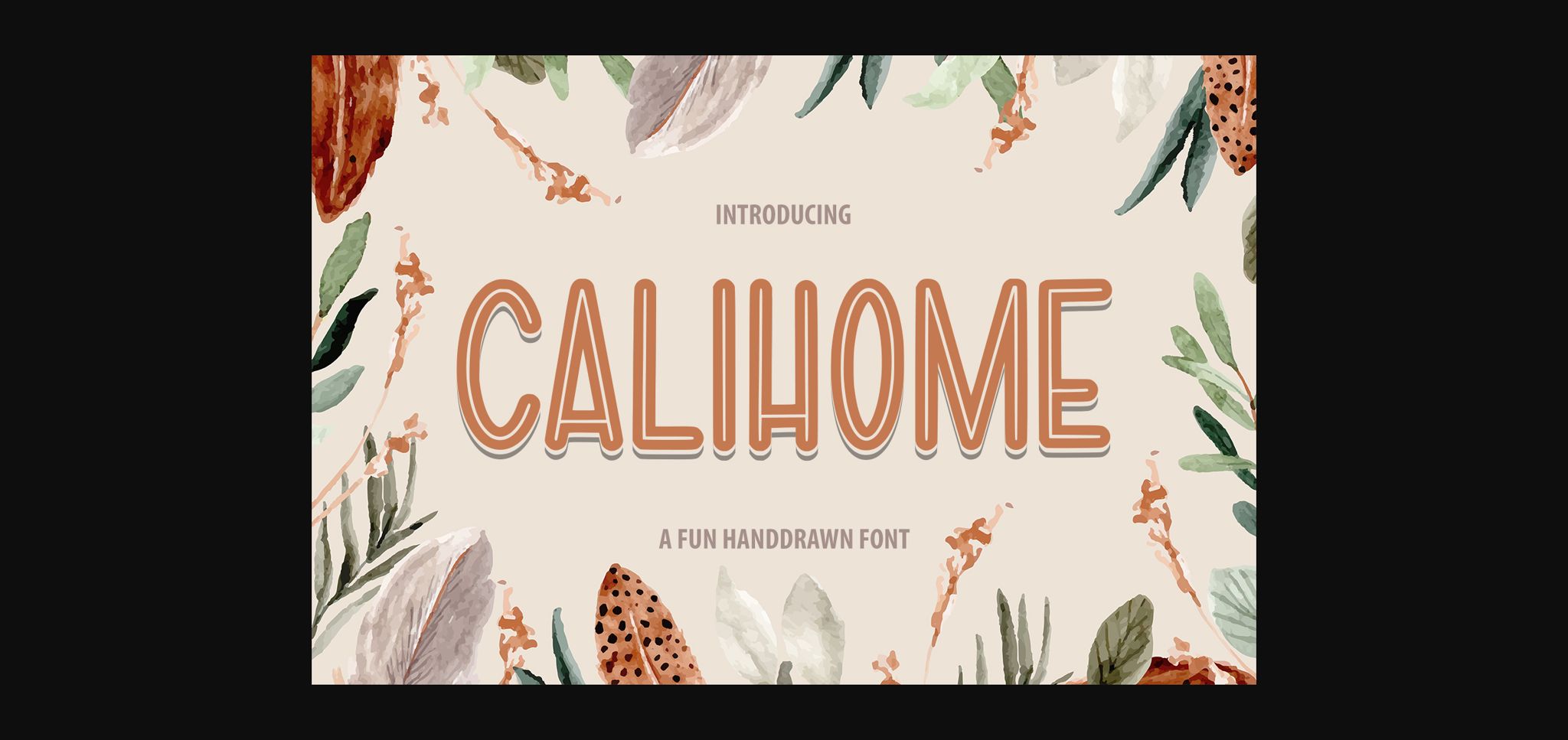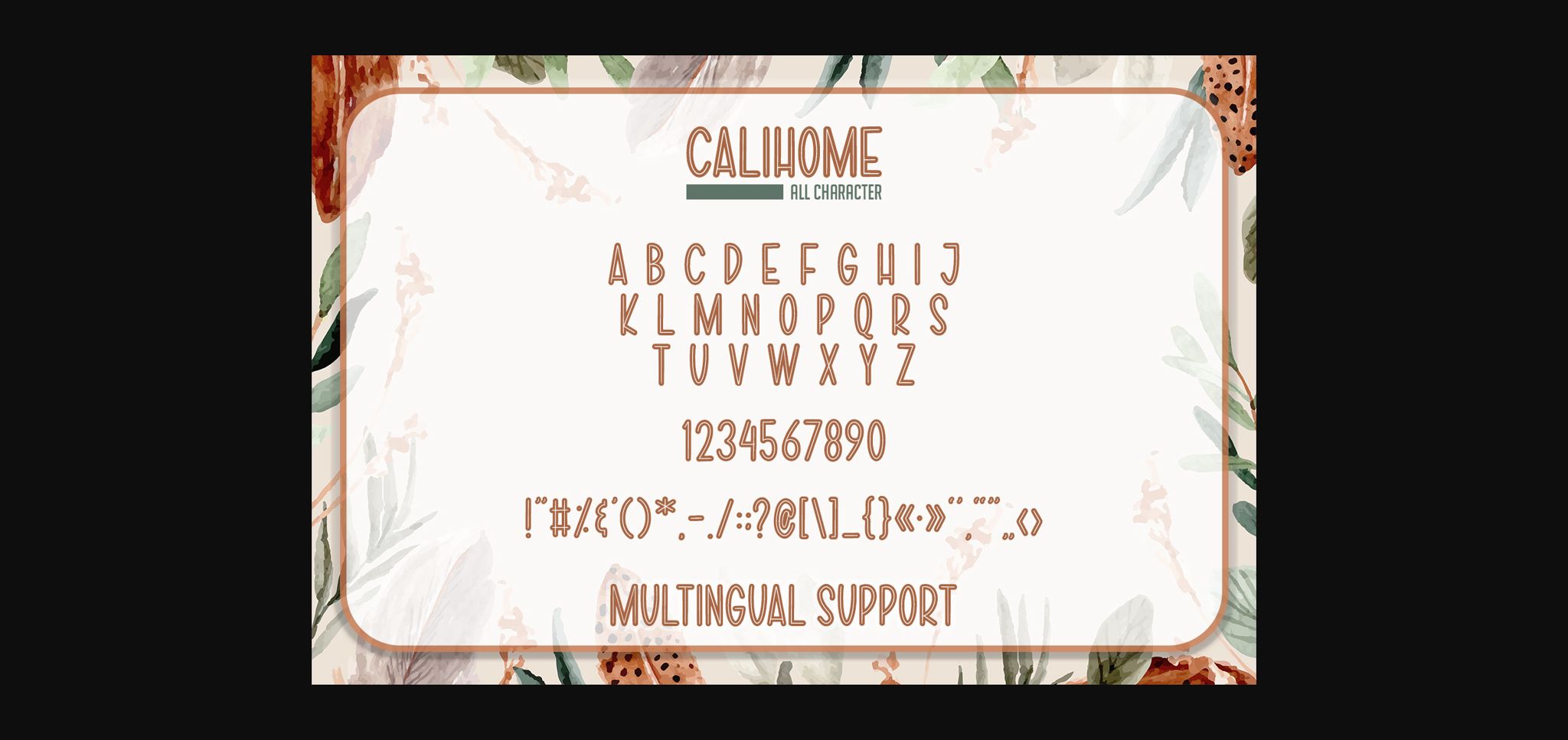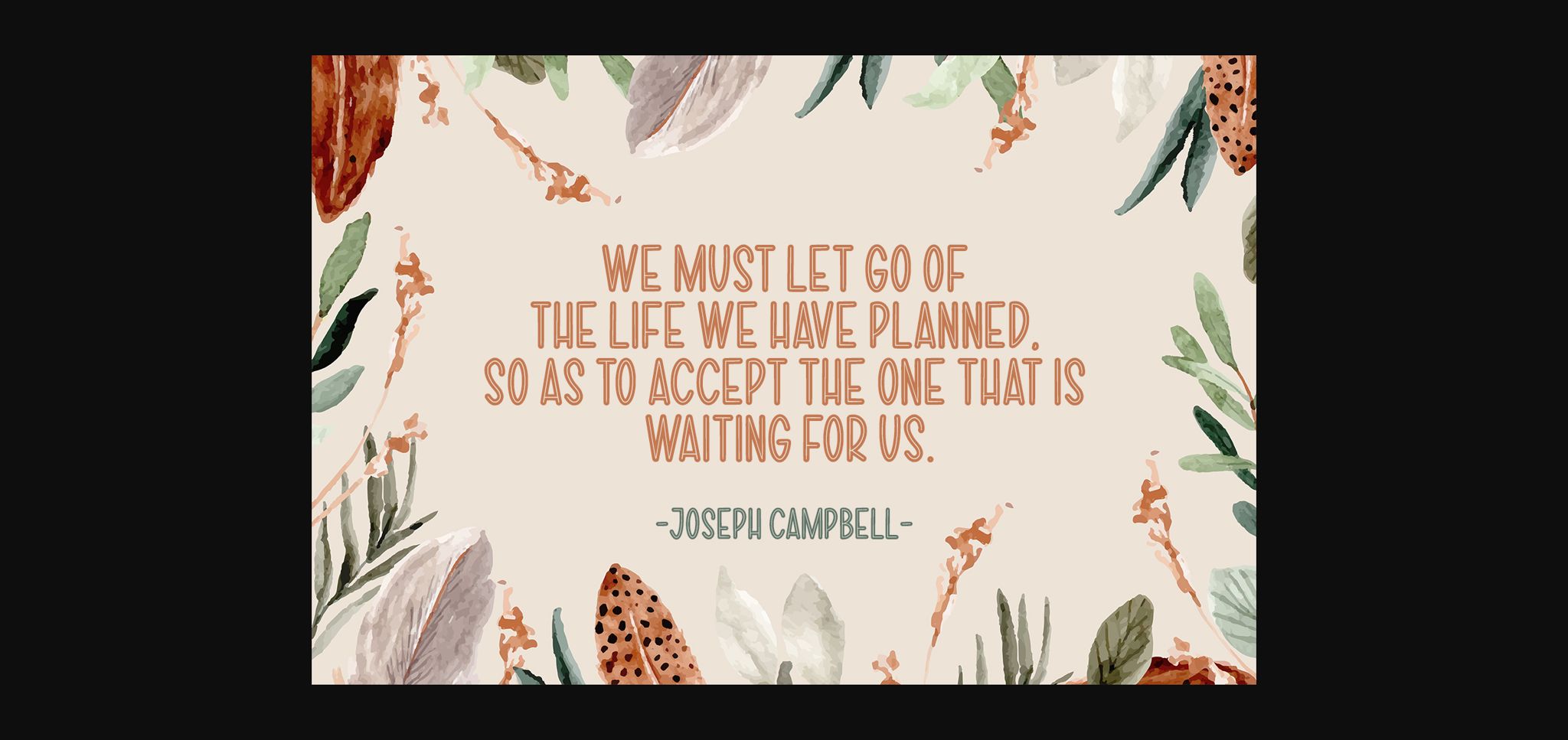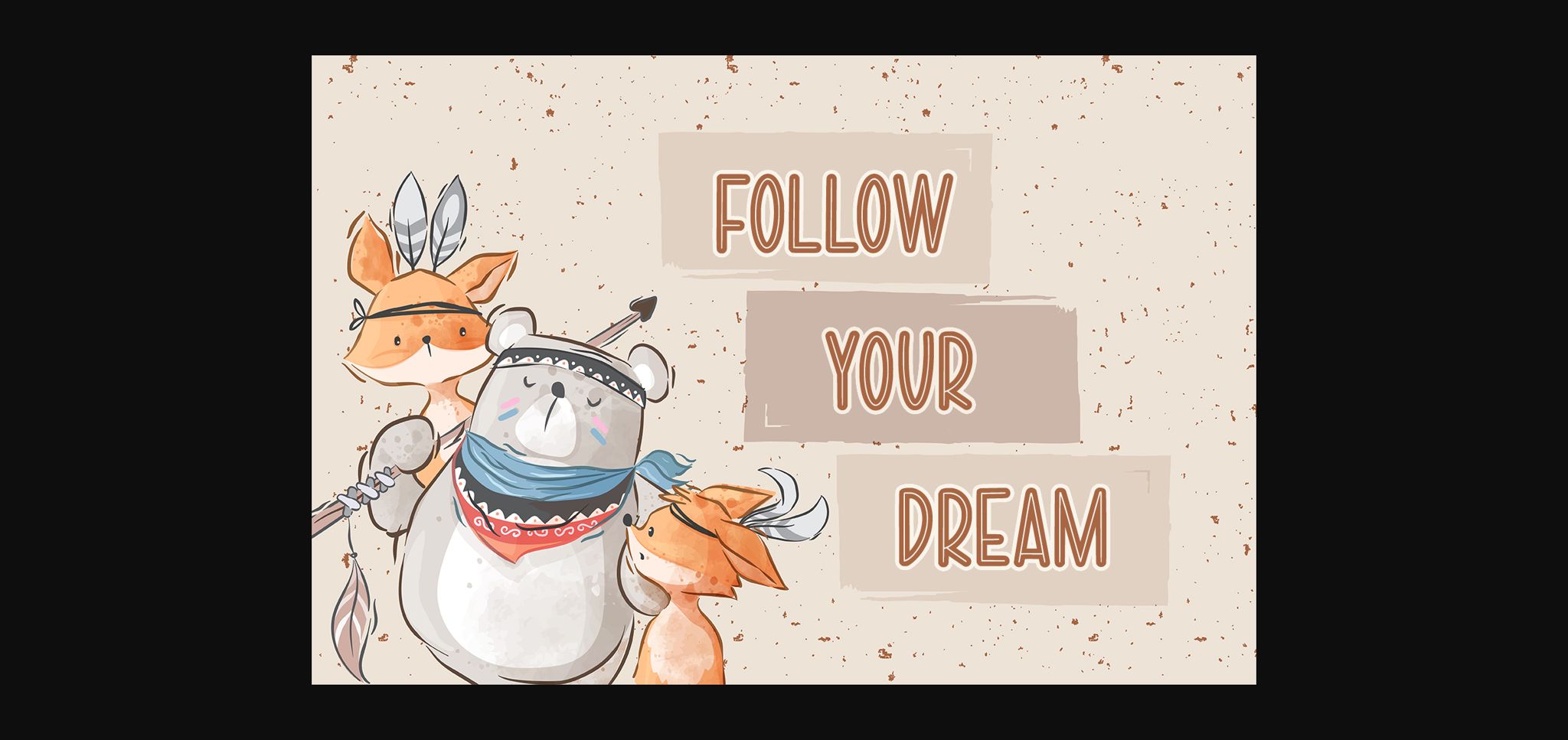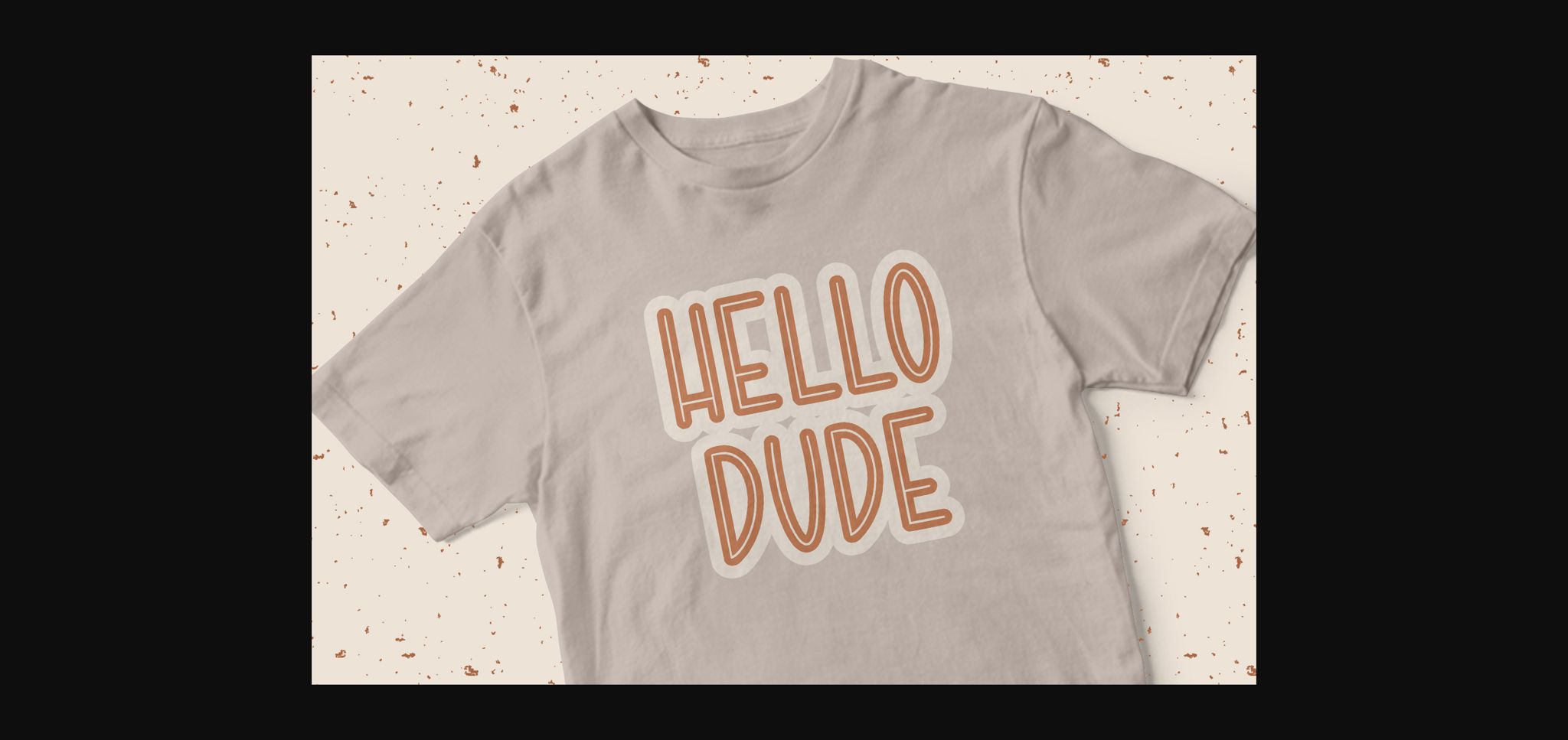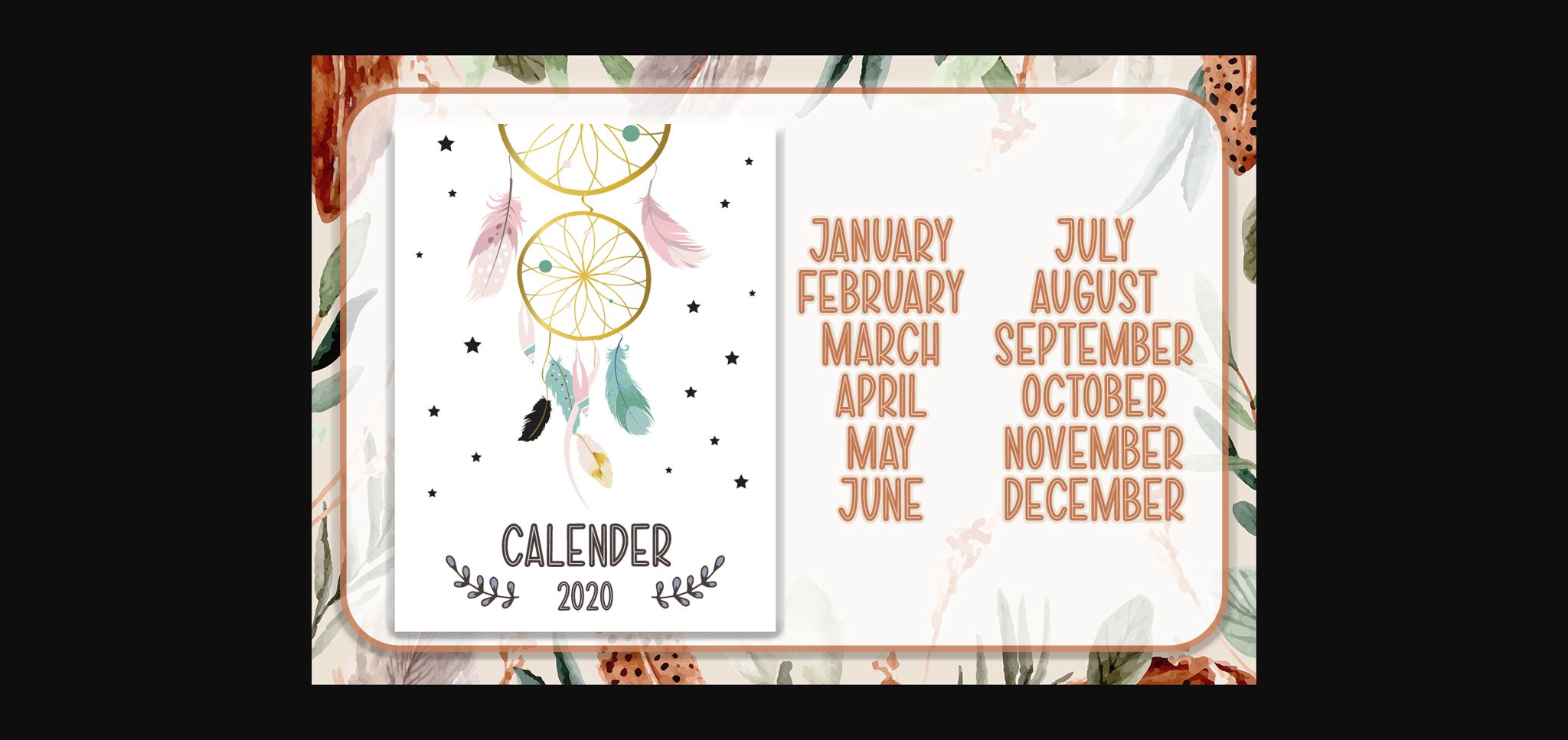
Calihome Font
About Calihome Font
Calihome is a simple and neat lettered sans serif font. It has a clean, thin and smooth vibe and it will be a hit for any design that you want to add it to.